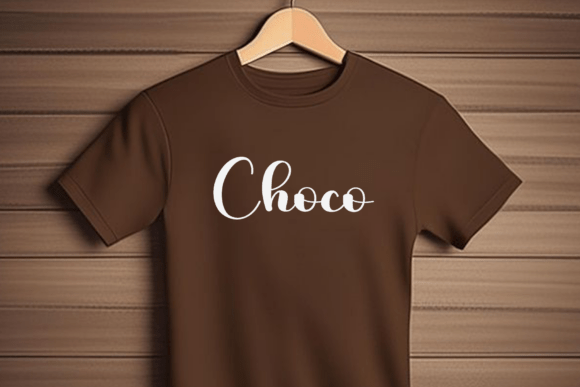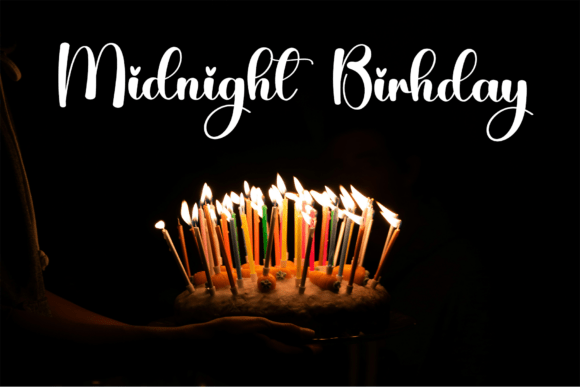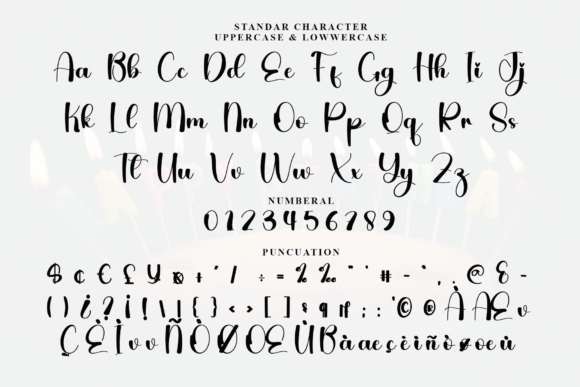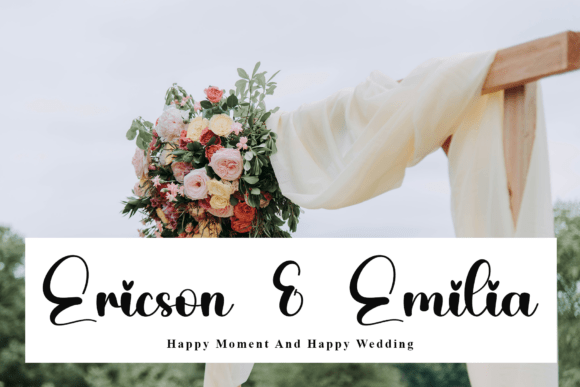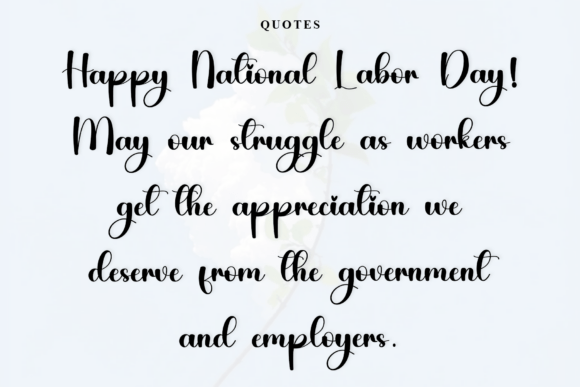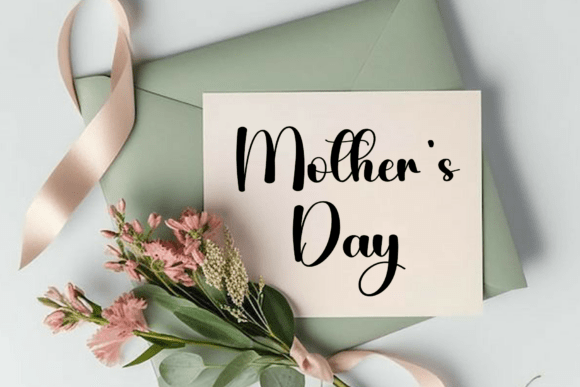
Introduction to Simple Embroidery Font Font
Fonts play a crucial role in design, and the Simple Embroidery Font font is a typeface that brings both character and versatility to any project. Whether you’re working on a branding project, a website, or a print design, the Simple Embroidery Font font offers a unique style that can elevate your work.
Simple Embroidery is a delicate handwritten font carefully crafted for a cool and unique design.
This font can be used to write letters, invitations, food products, titles, and more .
Key Features of Simple Embroidery Font Font
Why Choose Simple Embroidery Font Font?
The Simple Embroidery Font font is more than just a typeface – it’s a design tool that helps you communicate your message with style and clarity. Its unique character set and versatile design make it suitable for a wide range of applications, from elegant invitations to bold headlines.
With its carefully crafted letterforms and balanced proportions, the Simple Embroidery Font font ensures readability and visual appeal across all mediums.
What makes Simple Embroidery Font font special?
The Simple Embroidery Font font stands out with its unique design, exceptional readability, and versatility across various design applications.